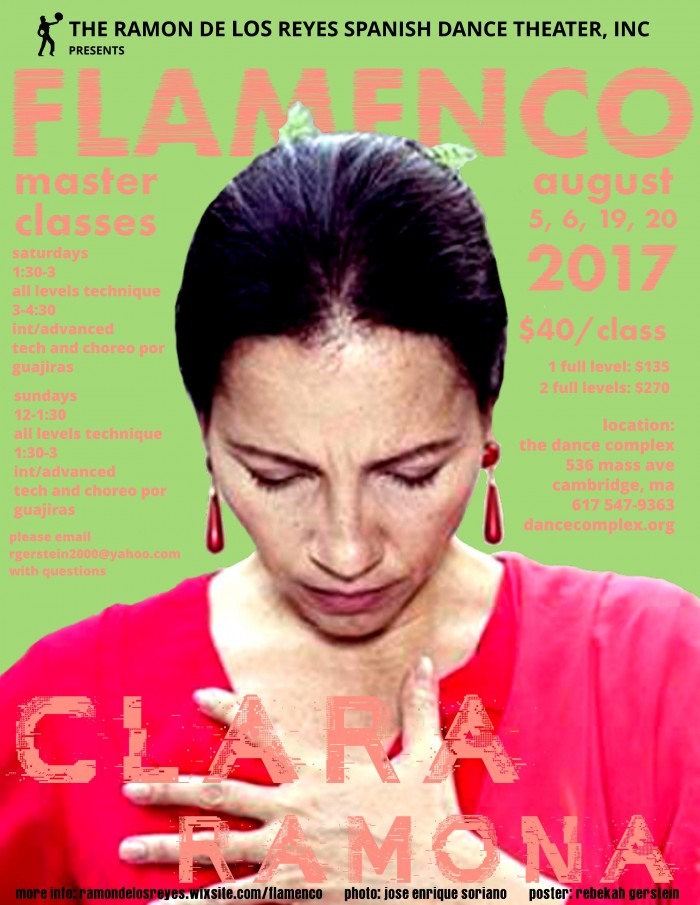
really cool font, good job man!
Truly an amazing font. One of the best that I've seen.
This font is gorgeous and the detail is amazing - just used it yesterday  - yes to disintegration but also gives a sense of delicacy and movement. Really fantastic work.
Keep up the interesting experimentations!
Virus_01by vivianvong